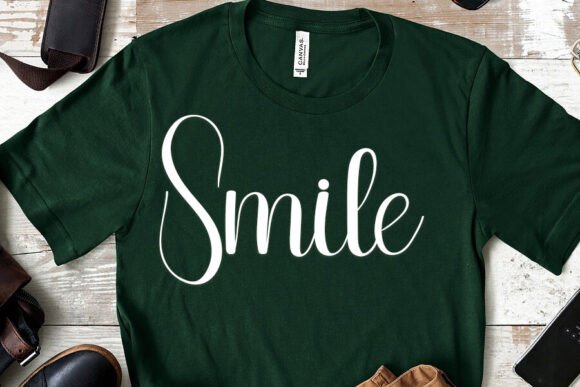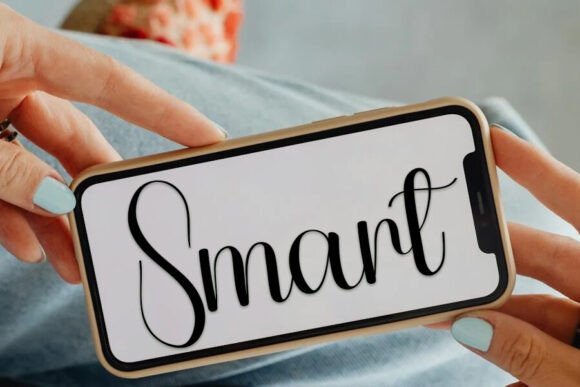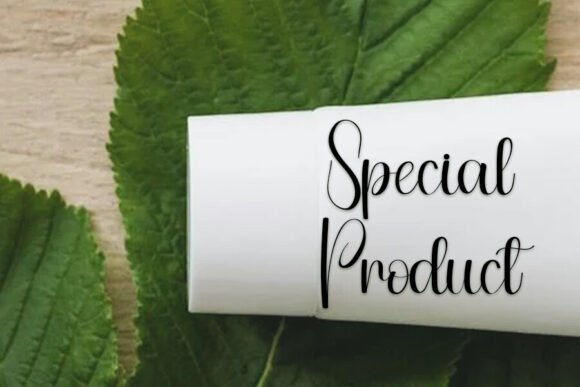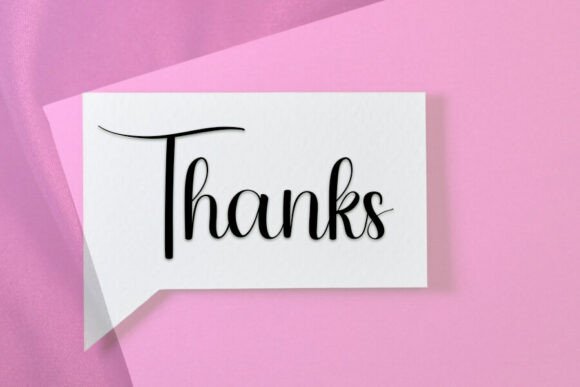
Introducing Biscuits Font: Elevate Your Designs with Simplicity and Elegance
In the world of design, fonts play a crucial role in conveying the visual narrative of a brand or project. With numerous font options available, finding the perfect one that combines versatility, elegance, and simplicity can be a daunting task. However, if you’re looking for a font that can add a splash of freshness to your designs, look no further than Biscuits Font. In this article, we’ll explore the unique features and benefits of Biscuits Font, and how it can elevate your business aesthetics and design projects.
A Versatile and Elegant Font for Various Design Needs
Biscuits Font is a carefully crafted font that boasts a unique style and simplicity, making it an excellent choice for a wide range of design applications. Whether you’re creating YouTube banners, Cover Logo Mockups, Wedding Invitations, ID Cards, Flyers, or Crafts, Biscuits Font offers a striking and elegant solution. Its versatility is unmatched, allowing designers and crafters to experiment with different styles and themes while maintaining a cohesive visual identity.
Key Features of Biscuits Font
- Unique Style: Biscuits Font features a distinctive style that sets it apart from other fonts. Its elegant and simple design makes it perfect for adding a touch of sophistication to your designs.
- Simplicity: The font’s simplicity ensures that it can be easily paired with other design elements, making it an excellent choice for complex designs.
- Versatility: Biscuits Font can be used for a wide range of design applications, from digital projects to print materials.
- Elegance: The font’s elegant design ensures that your designs look professional and visually appealing.
Benefits of Using Biscuits Font
Using Biscuits Font in your designs offers numerous benefits, including:
- Enhanced Visual Identity: Biscuits Font can help you establish a strong visual identity for your brand or project, setting you apart from competitors.
- Increased Engagement: The font’s unique style and simplicity can capture the attention of your audience, increasing engagement and interest in your designs.
- Improved Readability: Biscuits Font is designed to be easy to read, ensuring that your message is communicated clearly and effectively.
- Flexibility: The font’s versatility allows you to experiment with different styles and themes, making it an excellent choice for designers and crafters.
Design Applications for Biscuits Font
Biscuits Font can be used for a wide range of design applications, including:
- YouTube Banners: Create eye-catching YouTube banners that showcase your brand’s personality and style.
- Cover Logo Mockups: Design stunning cover logo mockups that elevate your brand’s visual identity.
- Wedding Invitations: Add a touch of elegance to your wedding invitations with Biscuits Font.
- ID Cards: Create professional and visually appealing ID cards that make a lasting impression.
- Flyers: Design attention-grabbing flyers that showcase your brand’s message and style.
- Crafts: Use Biscuits Font to add a personal touch to your crafts and DIY projects.
In conclusion, Biscuits Font is a versatile and elegant font that offers a unique combination of simplicity and elegance. With its wide range of design applications and benefits, it’s an excellent choice for designers and crafters looking to elevate their business aesthetics and design projects. Experience the beauty and functionality of Biscuits Font, and discover how it can help you communicate your visual narrative with style and sophistication.